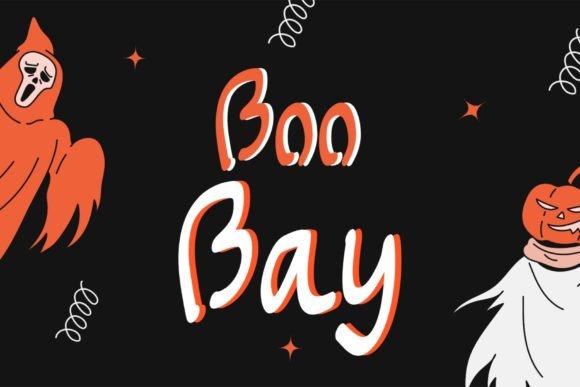
Step into the realm of the supernatural with Boo Bay font, a haunting and playful typeface that will cast a spell on your designs. This eerie and ethereal script, conjured by the masters at MyFontsShop, is a symphony of shadows and curves, enchanting the eyes with its ghostly allure.
Unleash your creativity and conjure spine-tingling designs with Boo Bay's bewitching charm. Its spooky elegance will add a touch of the macabre to invitations for haunted house parties, send chills down the spines of readers in chilling banners for costume contests, and cast an ominous spell on signage for ghostly gatherings.
Embrace the darkness and let Boo Bay's spectral beauty ignite your imagination. Its haunting presence will elevate your designs to new heights of horror, leaving your audience spellbound and eager for more.